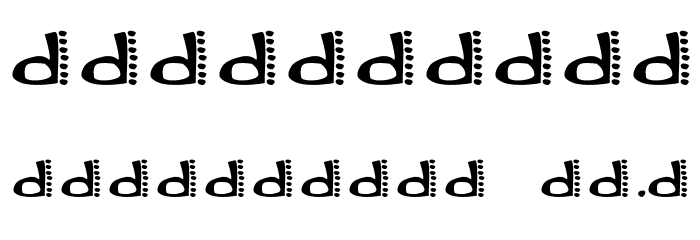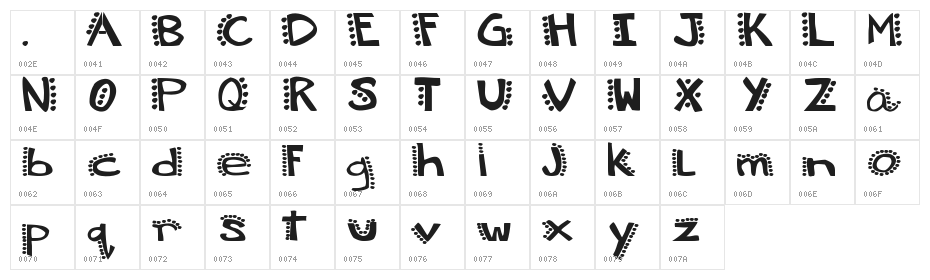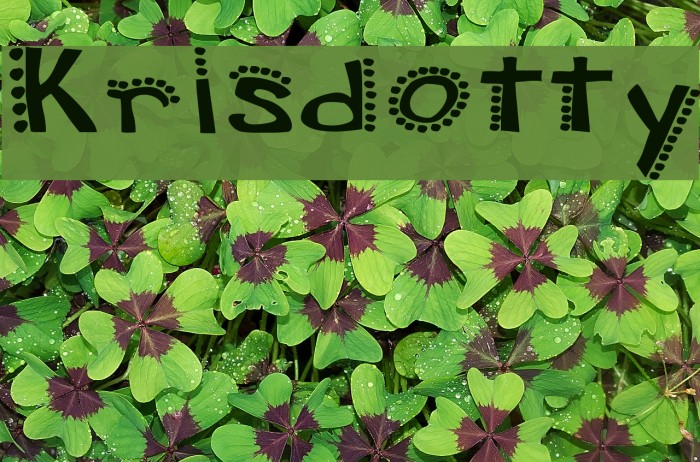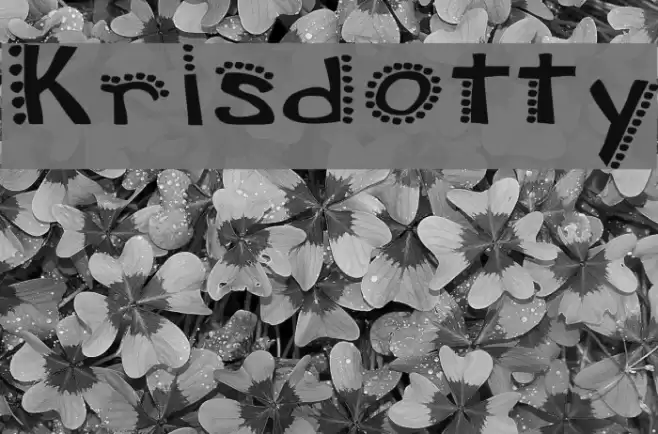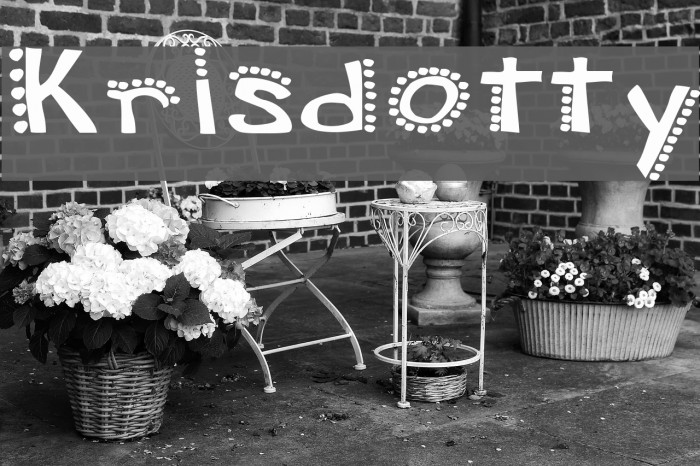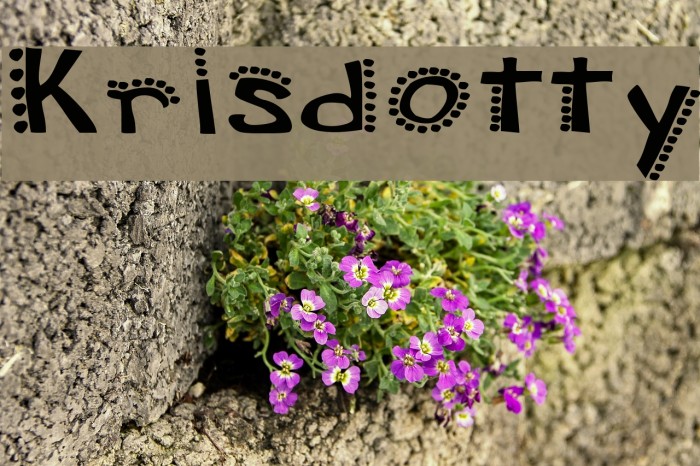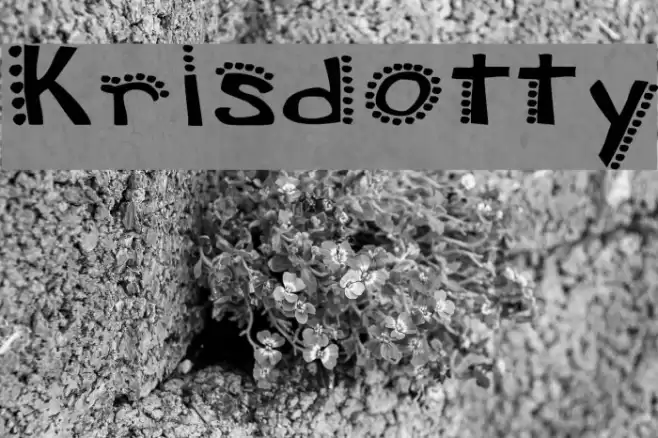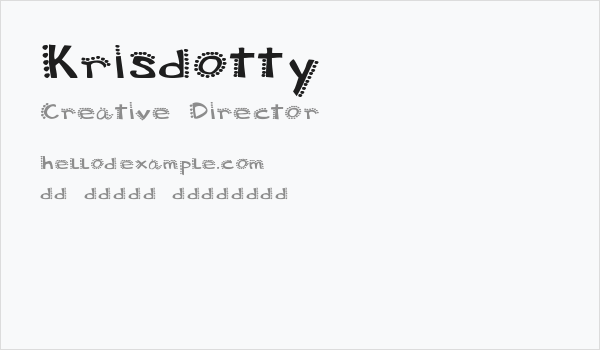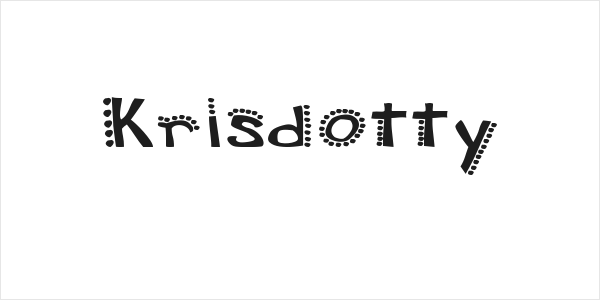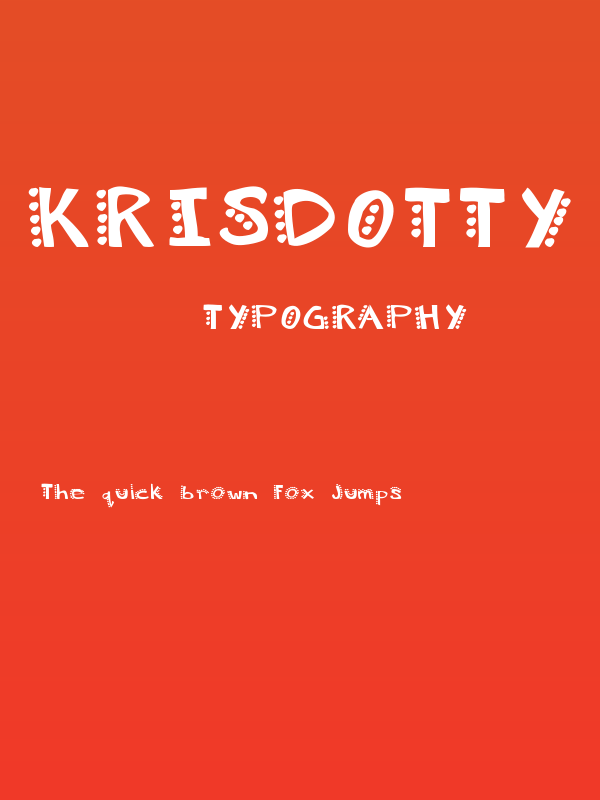
Krisdotty Font
Krisdotty Description
This playful and whimsical font features a unique dotted pattern integrated into each character, giving it a lively and fun appearance. The letters are bold and slightly irregular, adding to the casual and informal style. The uppercase and lowercase letters maintain a consistent design theme, with rounded edges and a hand-drawn feel. The font's decorative nature makes it stand out, making it ideal for creative projects that require a touch of personality and charm. The spacing between characters is normal, ensuring readability while maintaining its distinctive style.
| Overall Style | Whimsical, Playful |
| Proposed Projects | Ideal for children's books, playful posters, greeting cards, and creative branding projects. |